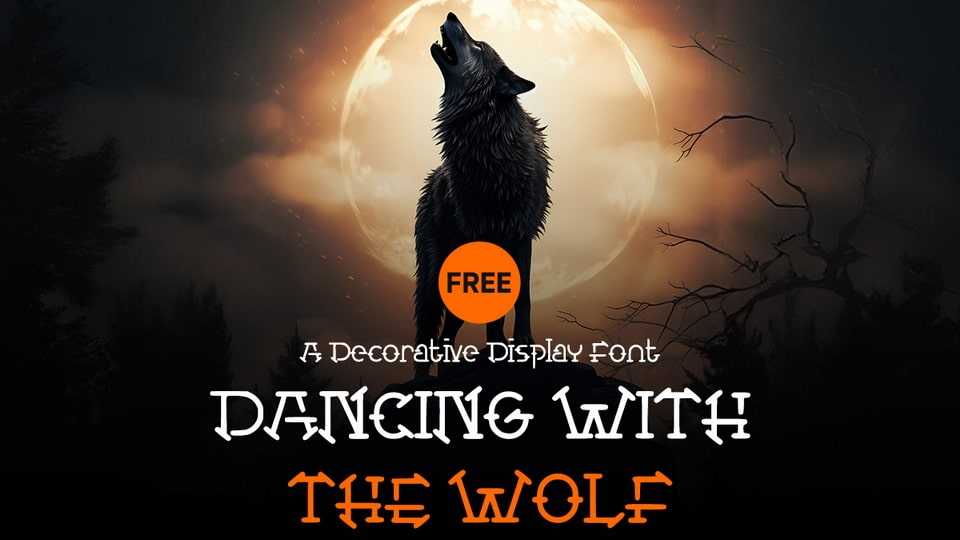
Download Dancing with the Wolf font, a decorative display typeface. Use it for logos, CD covers, book cover titles, movie posters, games, animations, clothing and so on.